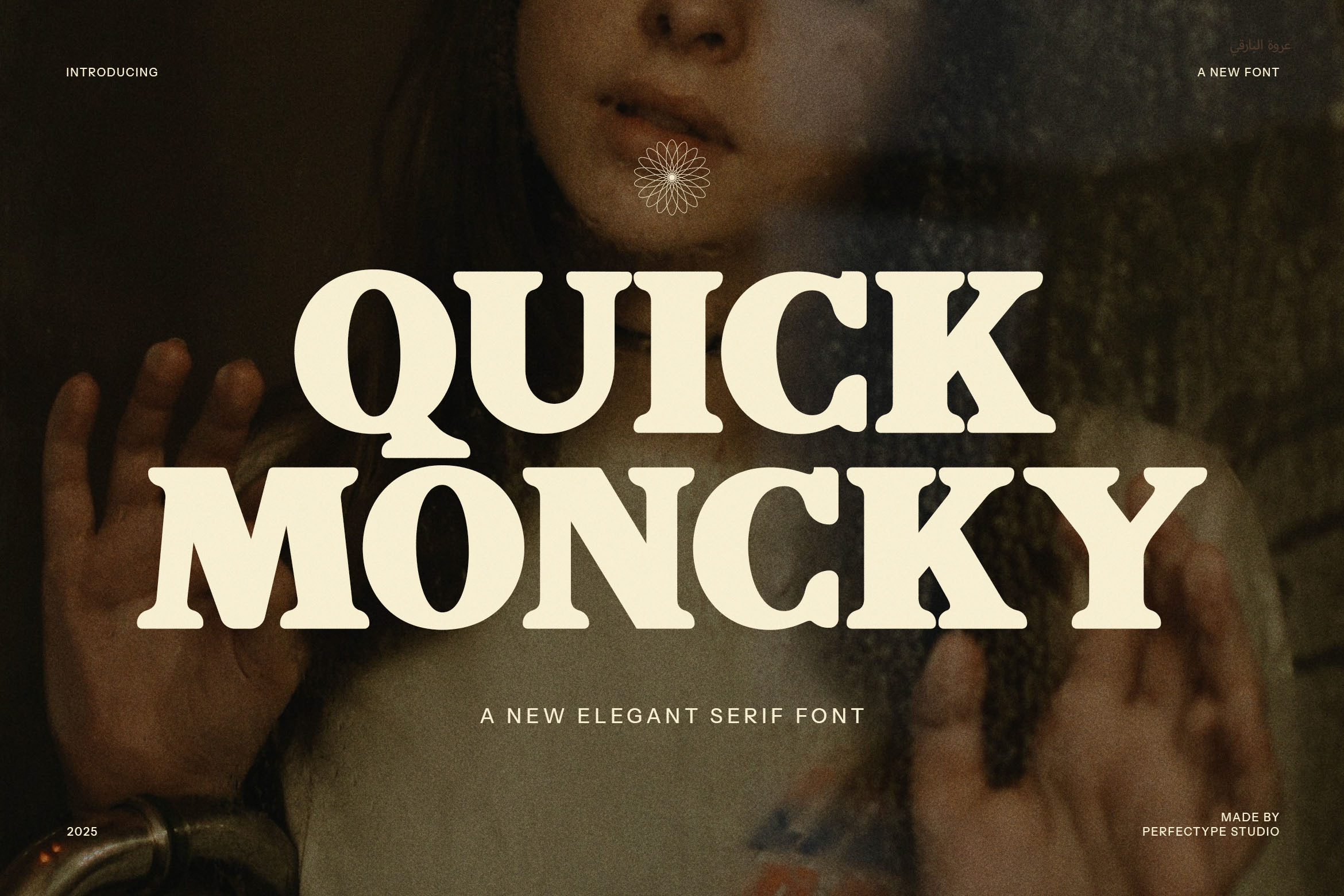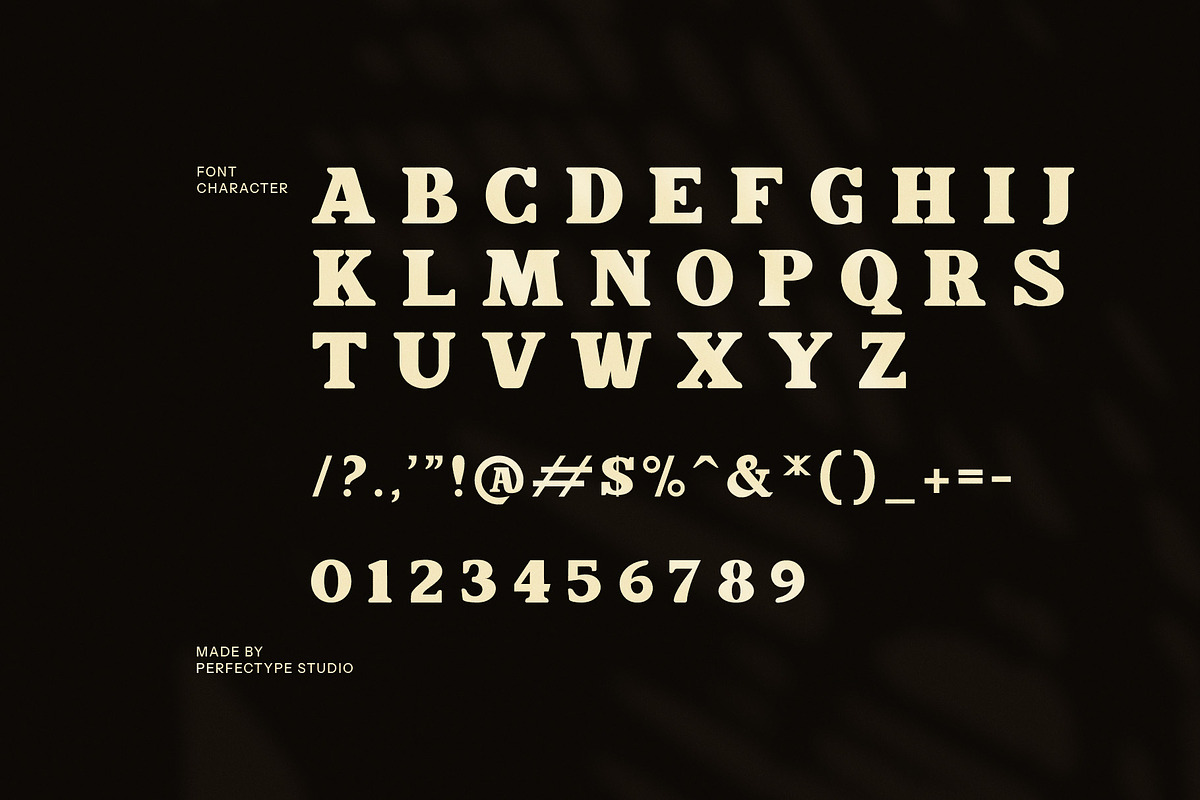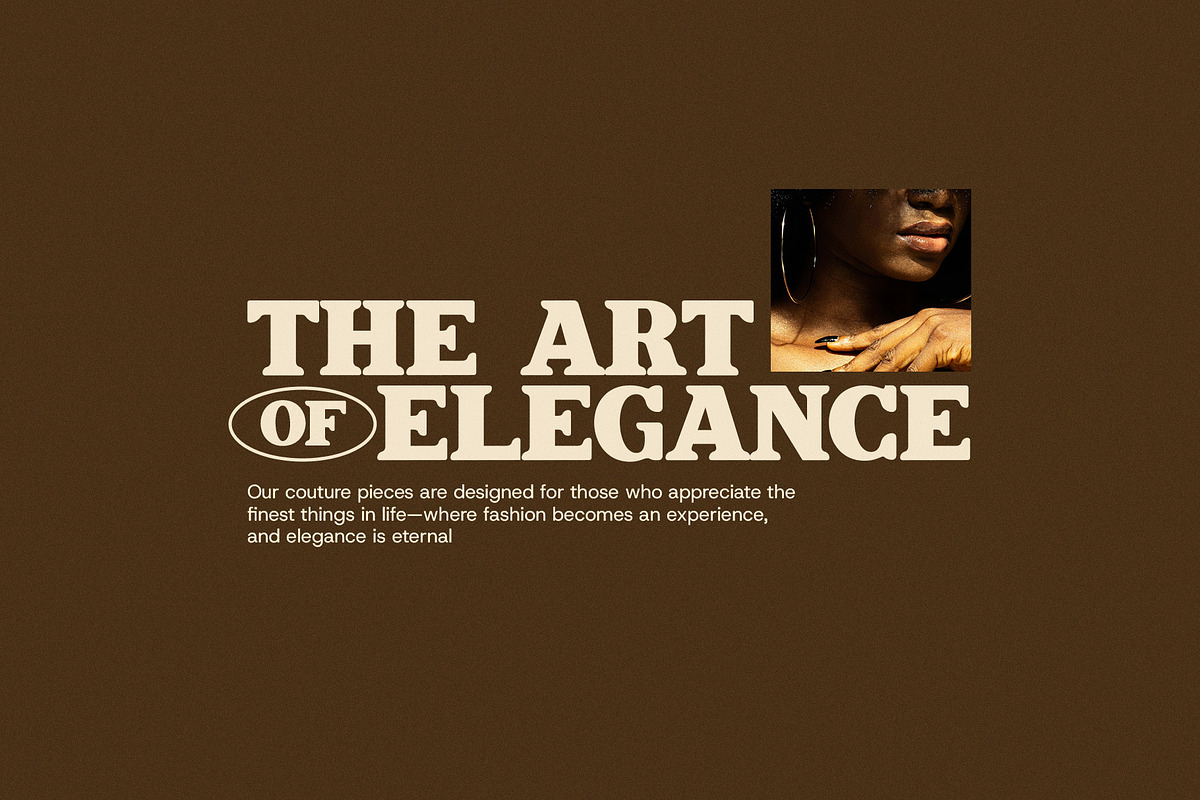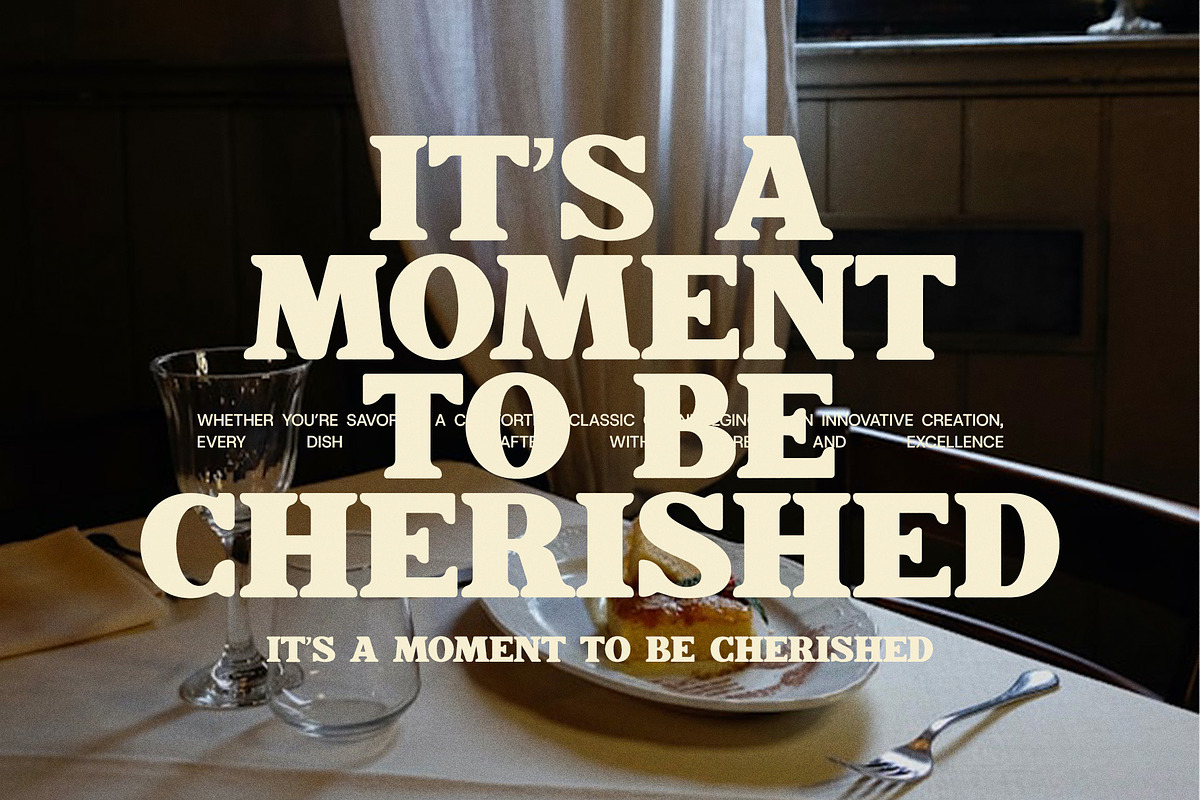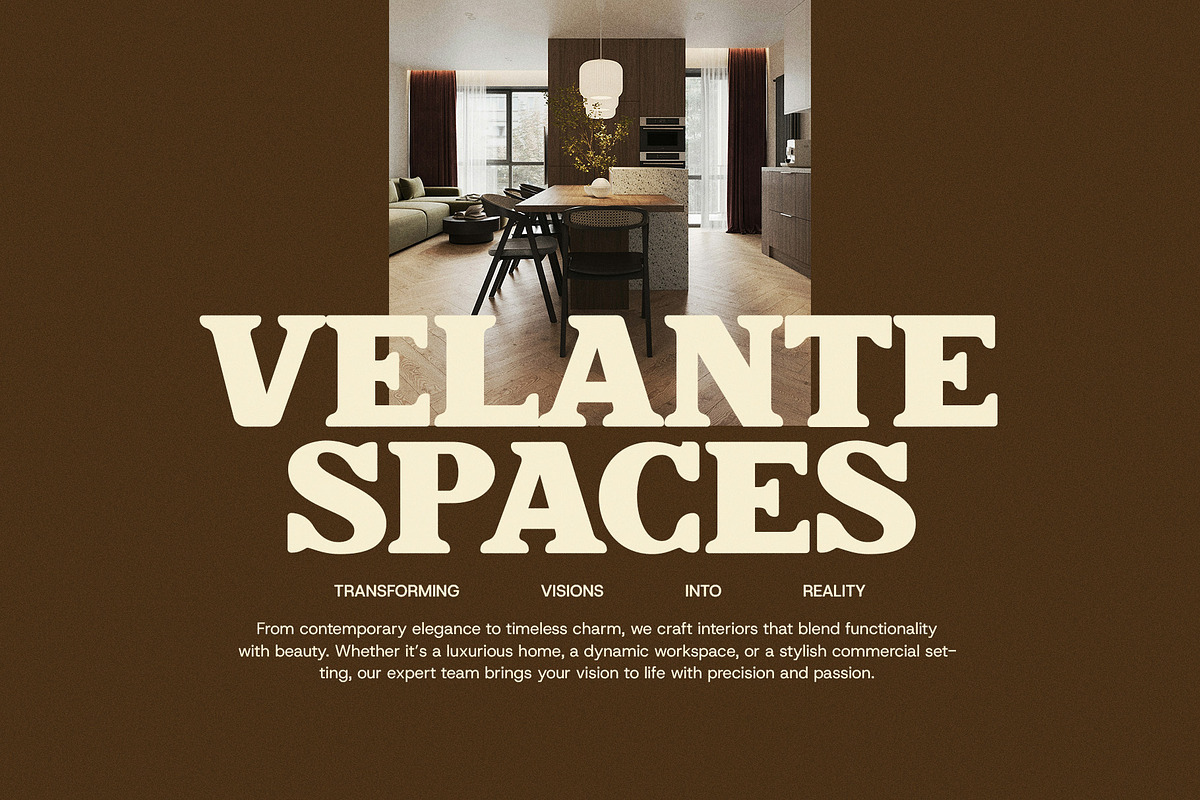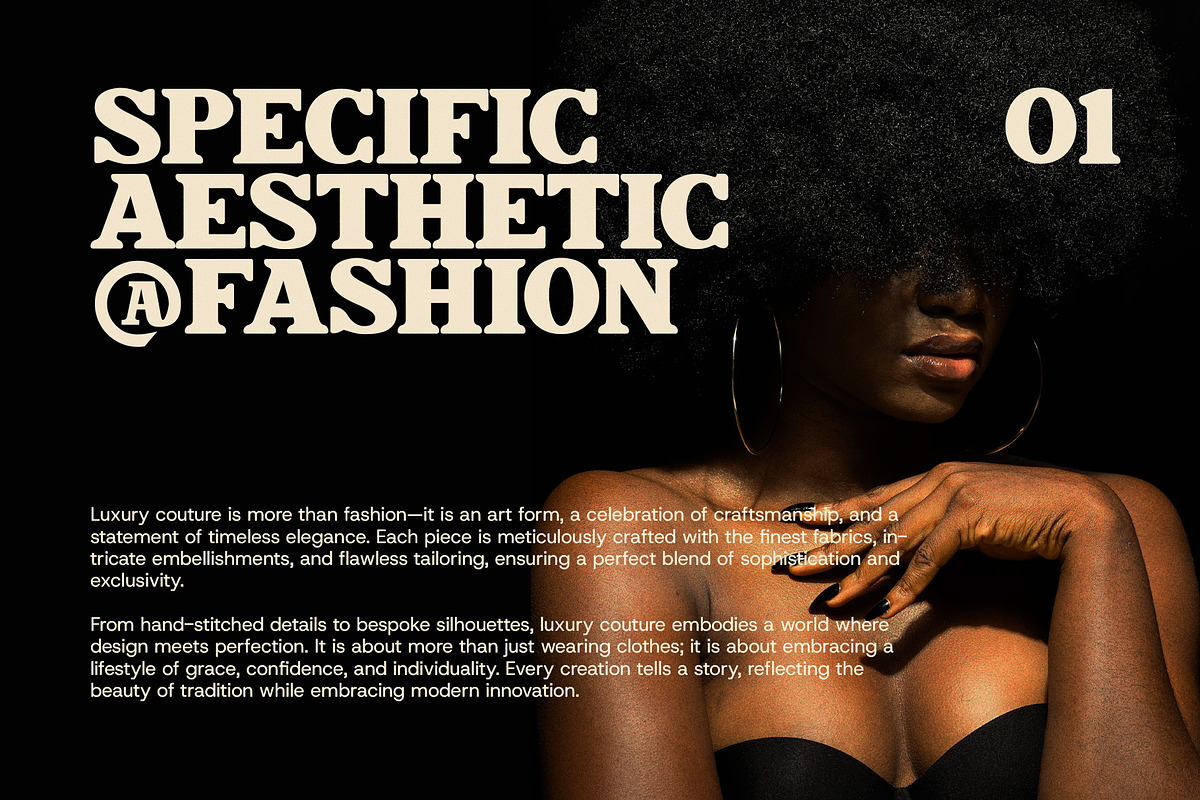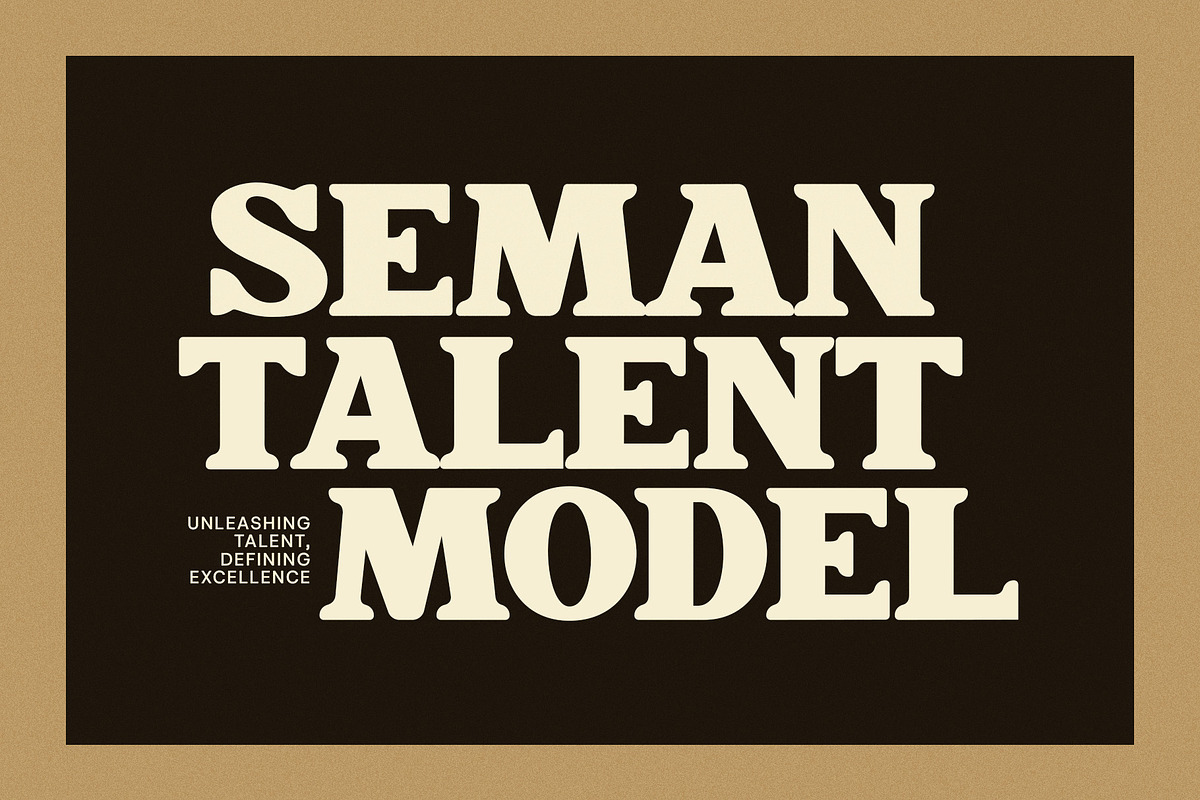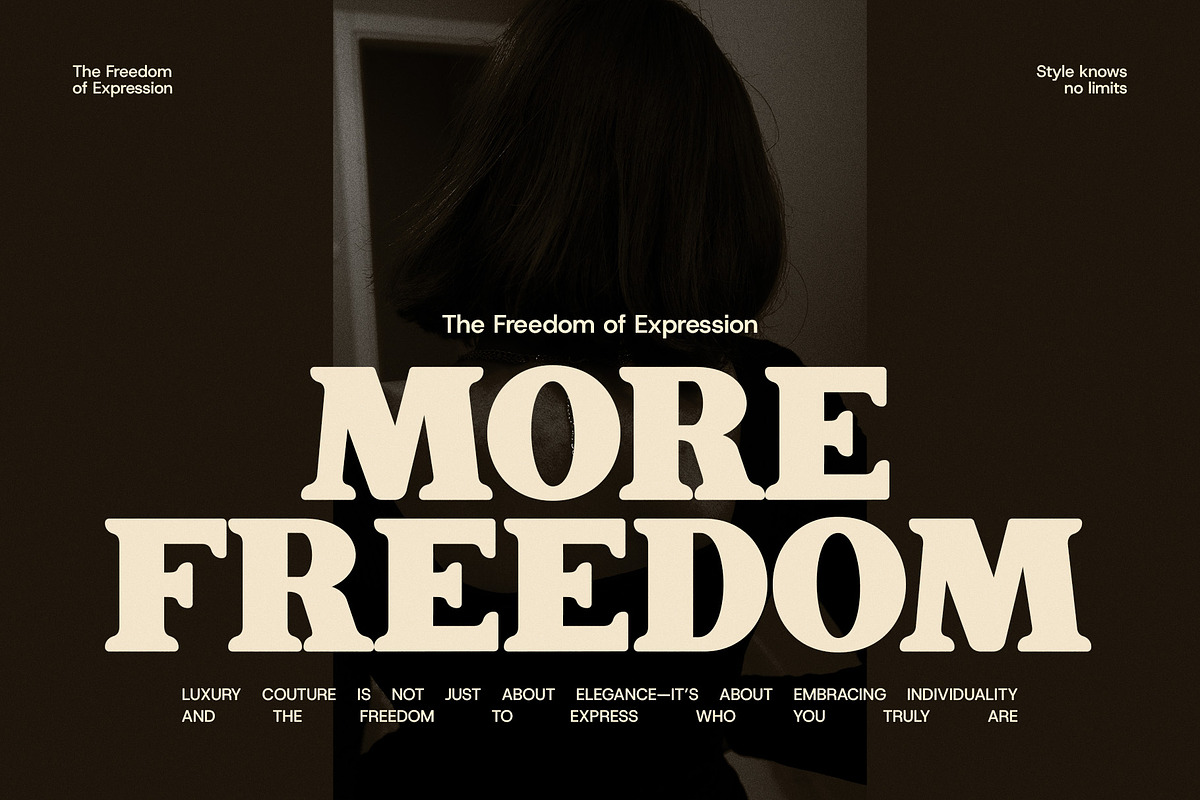
Quick Moncky Elegant Serif Font
Quick Moncky Elegant Serif Font is a refined, modern serif typeface designed to add sophistication and elegance to any design. With its distinctive ligatures and carefully crafted alternate letterforms, this font offers a unique visual appeal that sets it apart from the crowd. The clean lines and balanced serifs make it versatile, fitting seamlessly into a variety of contexts, from luxury brands to contemporary websites.
This font's sophisticated charm makes it an ideal choice for high-end logos, upscale branding, and premium product packaging. Its versatility extends to editorial design, making it perfect for magazines, brochures, and sophisticated layouts, where style and readability are essential. Whether used for fashion boutiques, culinary brands, or creative advertisements, Quick Moncky brings a touch of elegance to every project.
The meticulously designed alternates and ligatures ensure that your typography stands out with a distinct and polished finish. It’s perfect for those looking for a refined typeface that captures both tradition and modernity. Quick Moncky is particularly well-suited for designs that call for a blend of classic serif styling with a contemporary twist.
Perfect for websites, product labels, and more, Quick Moncky delivers a timeless elegance that works across digital and print media. Elevate your brand with this standout serif font, combining beauty, versatility, and modern flair. Whether you're designing for a boutique, a food bra